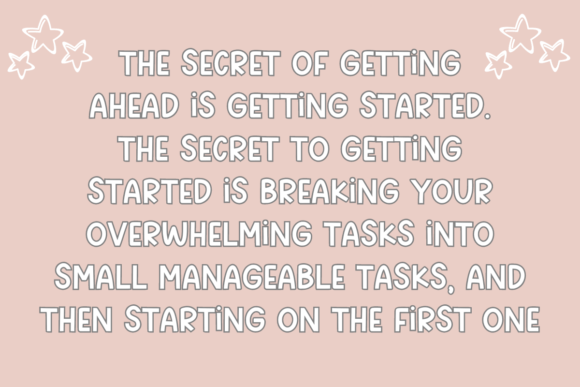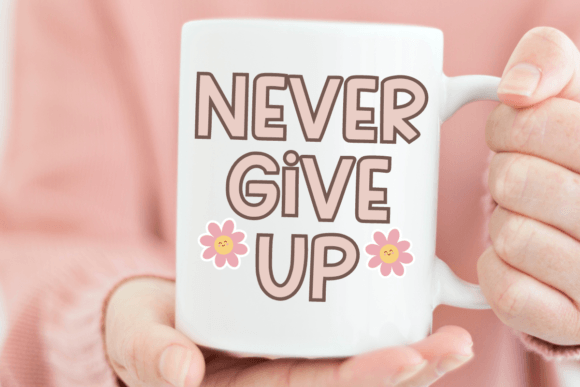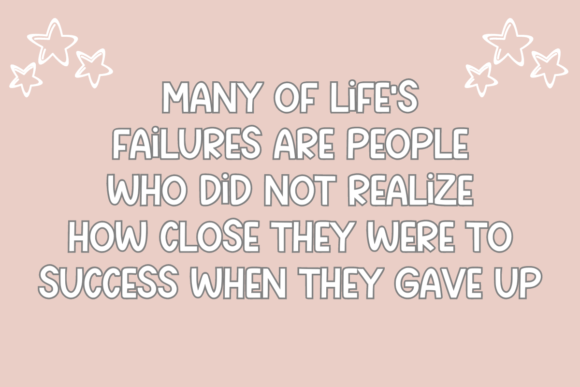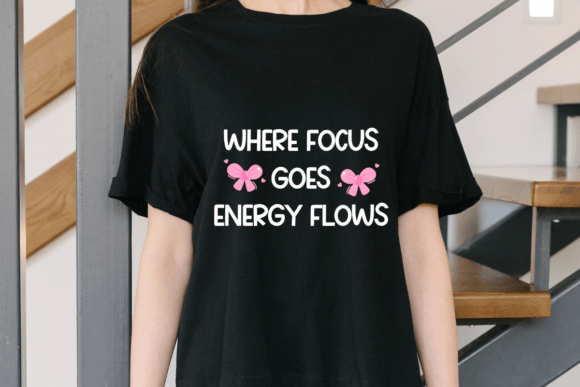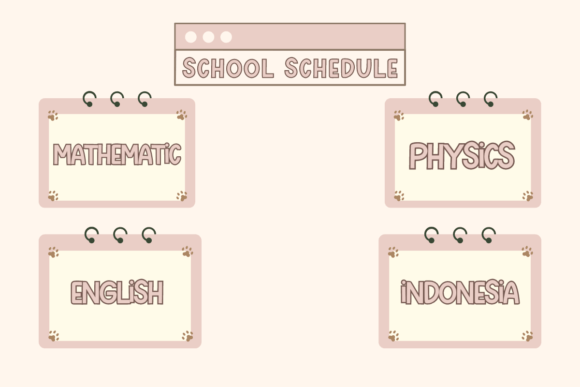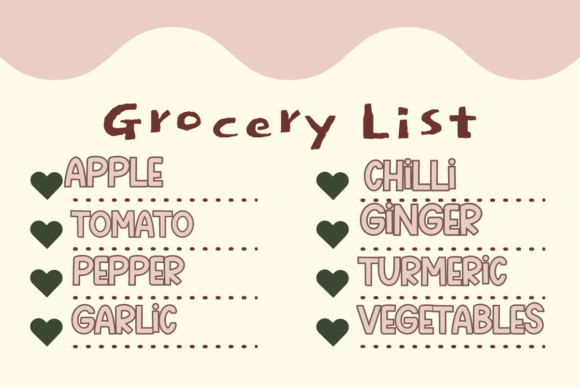
Discovering the Perfect Font for Your Creative Projects
Have you ever sat in front of a blank page, surrounded by colorful pens, sticky notes, and a sea of ideas, yet struggling to find the perfect font to bring your vision to life? We’ve all been there! For designers and creatives, finding the right font can make all the difference in elevating our work from good to great.
Enter Eight Some Font, a charming sans serif font that’s perfect for adding a touch of whimsy to your journal pages, scrapbook layouts, or even your favorite quotes. This cute and quirky font is designed to add a natural, handwritten feel to your designs, making it ideal for a wide range of applications, from planners and stickers to interior designs and women’s apparel.
Eight Some Font Key Features
- Unique Characteristics: Eight Some Font features a unique blend of modern and vintage elements, with subtle geometric shapes and elegant lines, making it perfect for creating visually striking designs.
- Language Support: The font supports a wide range of languages, including Latin, Cyrillic, Greek, and many others, making it a versatile choice for multilingual projects.
- Font Weight and Style: Eight Some Font comes in multiple weights (light, regular, bold, black) and styles (italic, oblique), providing ample options for creating visual hierarchy and emphasis in designs.
- Scalability: The font is designed to scale well, ensuring that it remains legible and visually appealing even at small sizes or when used in complex compositions.
Eight Some Font Review
Overall, I think Eight Some Font is a solid addition to any designer’s toolkit. ✨ Here are some things that work well:
- Unique aesthetic: Eight Some Font has a distinctive, hand-drawn feel that sets it apart from more traditional fonts.
- Wide language support: The font includes a wide range of languages, making it a great choice for international projects.
- High-quality vector files: The font’s vector files are well-designed and easy to work with, even at small sizes.
However, there are some limitations to consider: ⚠️
- Limited font weights: Eight Some Font only comes in a few font weights, which may limit its use in certain situations.
- No italics: Unfortunately, there are no italics available for the font, which may make it difficult to use in certain contexts.
- Potential readability issues: The font’s unique aesthetic can make it difficult to read at small sizes or in certain lighting conditions.
Overall, I think Eight Some Font is a great choice for designers who want to add a touch of personality to their projects. With its unique aesthetic and wide language support, it’s a great addition to any toolkit. However, its limitations should be carefully considered before making a purchase.
Eight Some Font is ideal for creating eye-catching headings, titles, and logos. Use it to add a touch of sophistication and elegance to your designs. Some common use cases include:
- Branding and identity design
- Editorials and publications
- Advertising and marketing materials